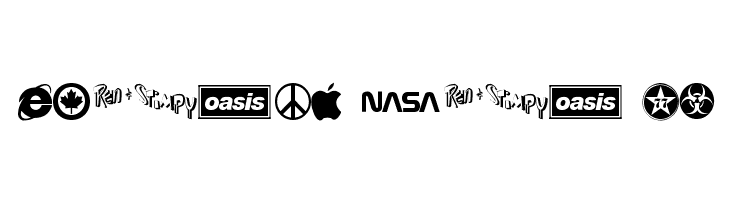
A playful font with letters in heart-shaped wheelbarrows.
A whimsical and elegant script font with flowing, cursive letters.
A playful font with letters embedded in gorilla silhouettes, ideal for decorative use.
A whimsical decorative font featuring a child fishing silhouette with integrated letters.
A modern, inclusive font combining letters with the wheelchair symbol.
A decorative serif font with playful illustrations in uppercase letters.
A playful, wave-themed decorative font ideal for nautical designs.
A decorative font with characters enclosed in Celtic crosses, blending tradition with modern style.
A playful, cartoonish font with Spartan characters integrated into each letter.
A bold, playful font with handprint motifs on each letter.
A whimsical font with winged circular letters, perfect for fantasy themes.
A decorative font with characters inside sheriff badge shapes, perfect for Western-themed designs.
A decorative font with floral patterns on bold uppercase letters.
A playful font with characters enclosed in alarm clock designs, ideal for creative projects.
The image contains decorative icons, not a font.
A playful font with characters resembling handprints, ideal for fun and informal projects.
A pixelated, retro-style font with a digital, blocky appearance.
A bold, geometric font with a futuristic, digital aesthetic.
A pixelated, retro-style font with a digital, blocky appearance.
A pixelated, retro-style font with a playful, digital aesthetic.
A bold, pixelated font with a retro, digital aesthetic.
A playful, bold outline font with geometric, block-like letters.
A playful and whimsical font with exaggerated, irregular letterforms.
A playful, handwritten font with rounded edges and a casual style.
A playful, handwritten font with rounded, consistent strokes and a casual feel.
A pixelated, retro font inspired by early digital displays.
Font with U.S. state outlines as characters, labeled with cities or abbreviations.